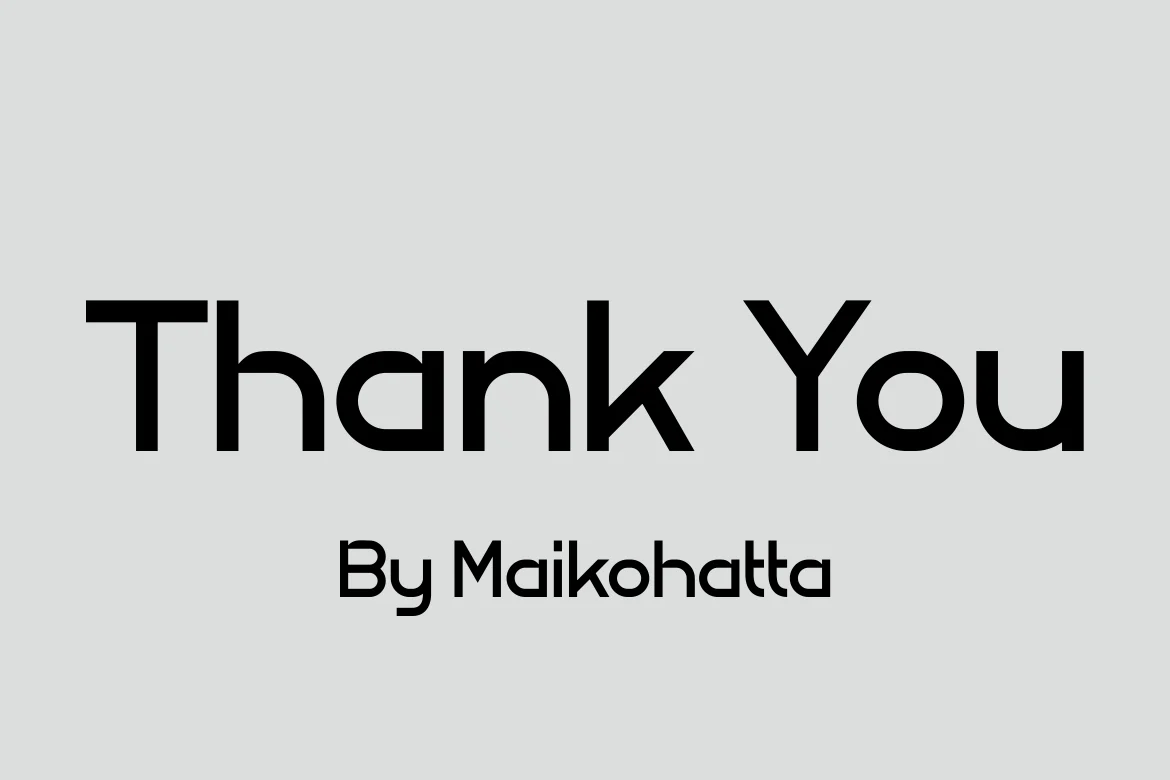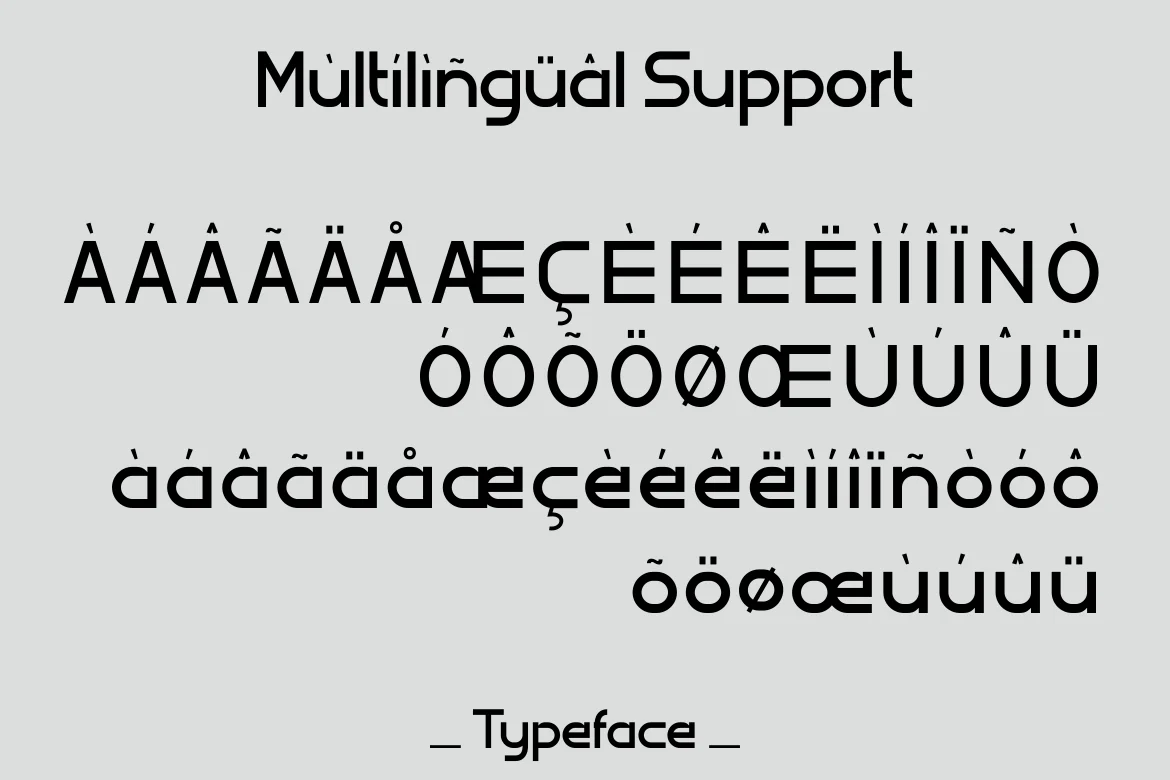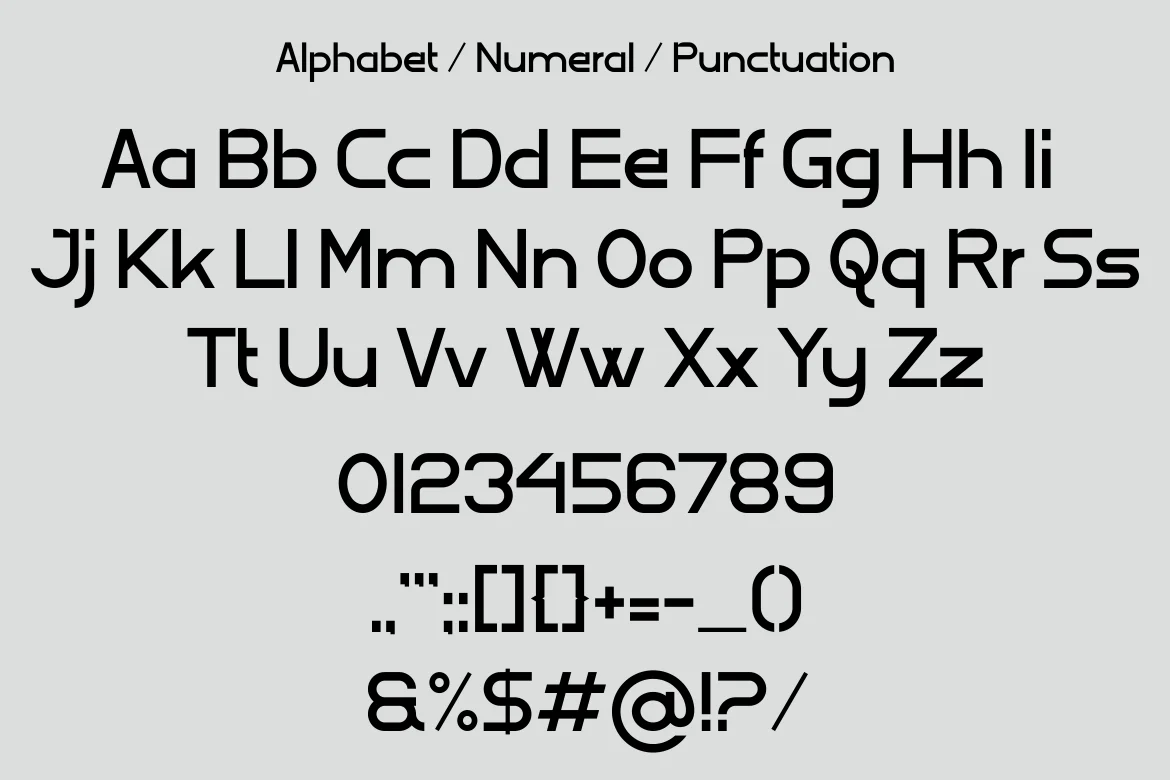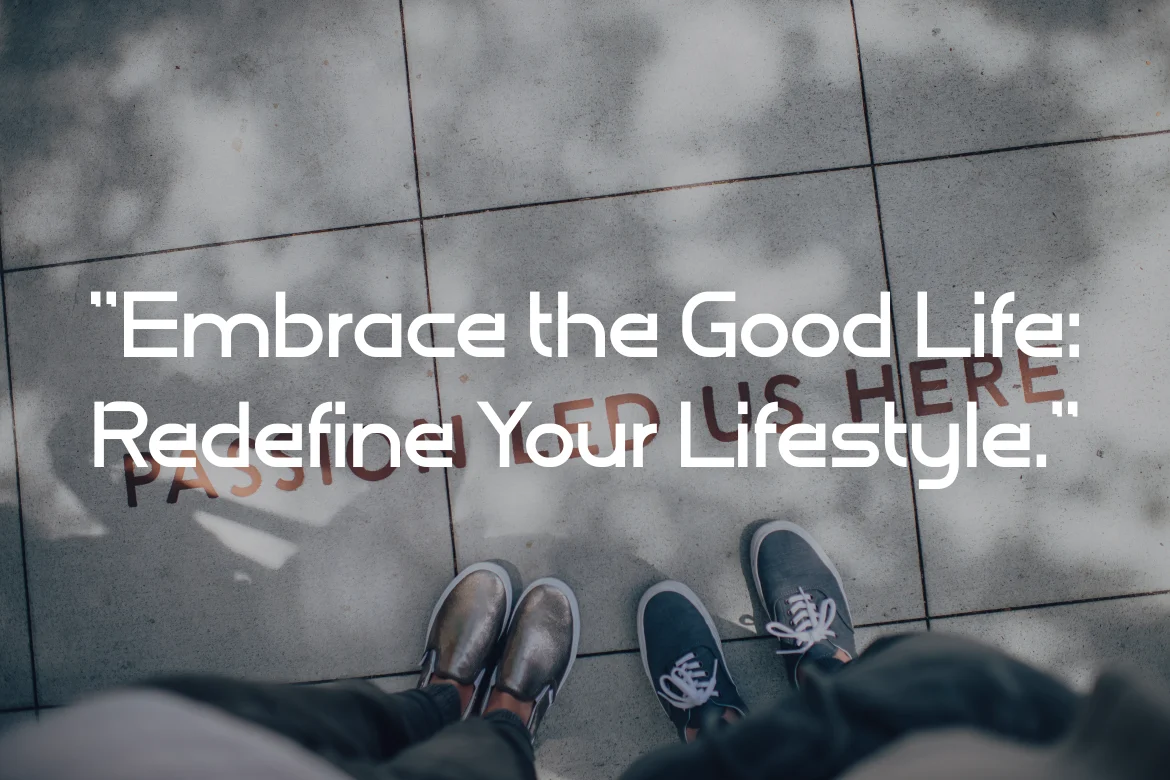
Geliano Font
Introducing our new product Geliano Font
Geliano Font - Modern Font is a bold and authentic display font. The font is suitable for any branding project like logo, template design, and many more. outstanding in a wide range of contexts.